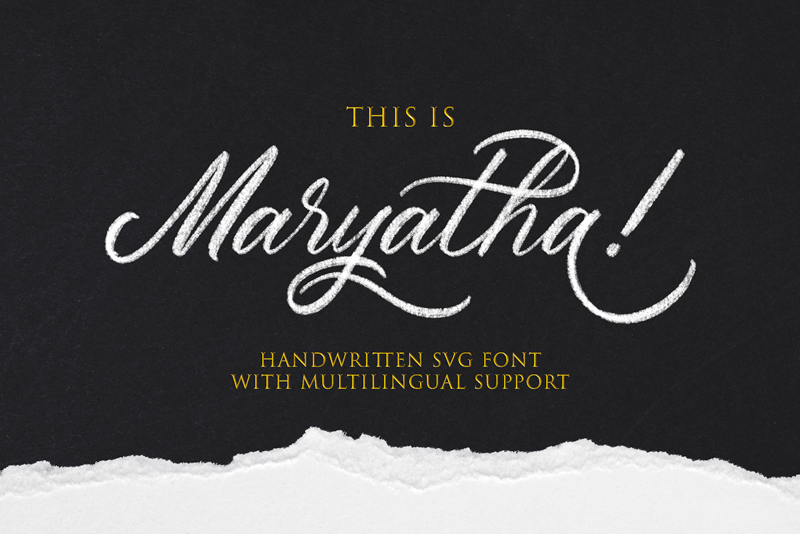
Maryatha is a new beautiful font, with high quality crayon textured made this font look like your handwriting. Create your moodboard, typography, your Insta story or anything you wanna create look gorgeous. Take a look and download for SVG Version here https://crmrkt.com/X8X0jR |